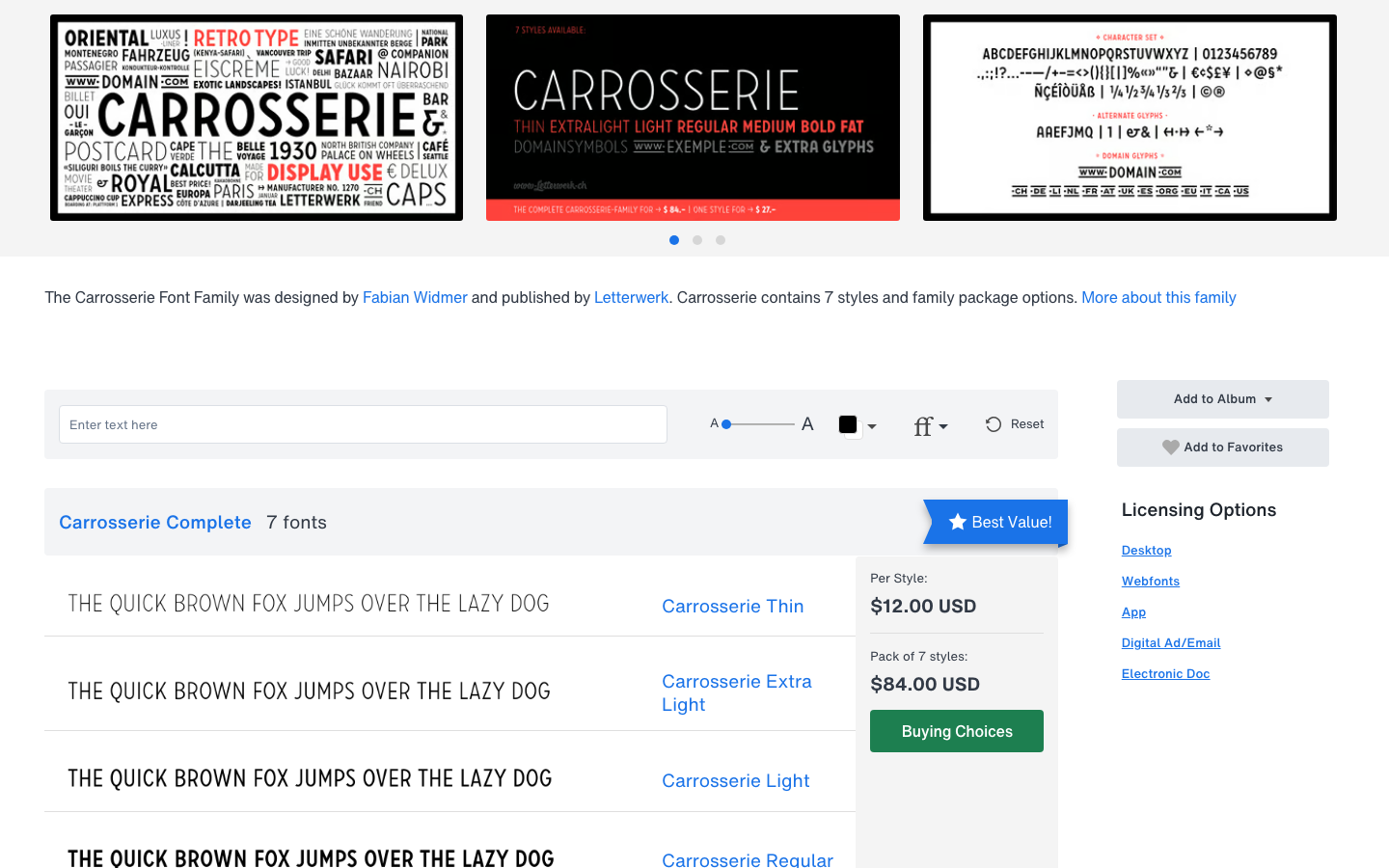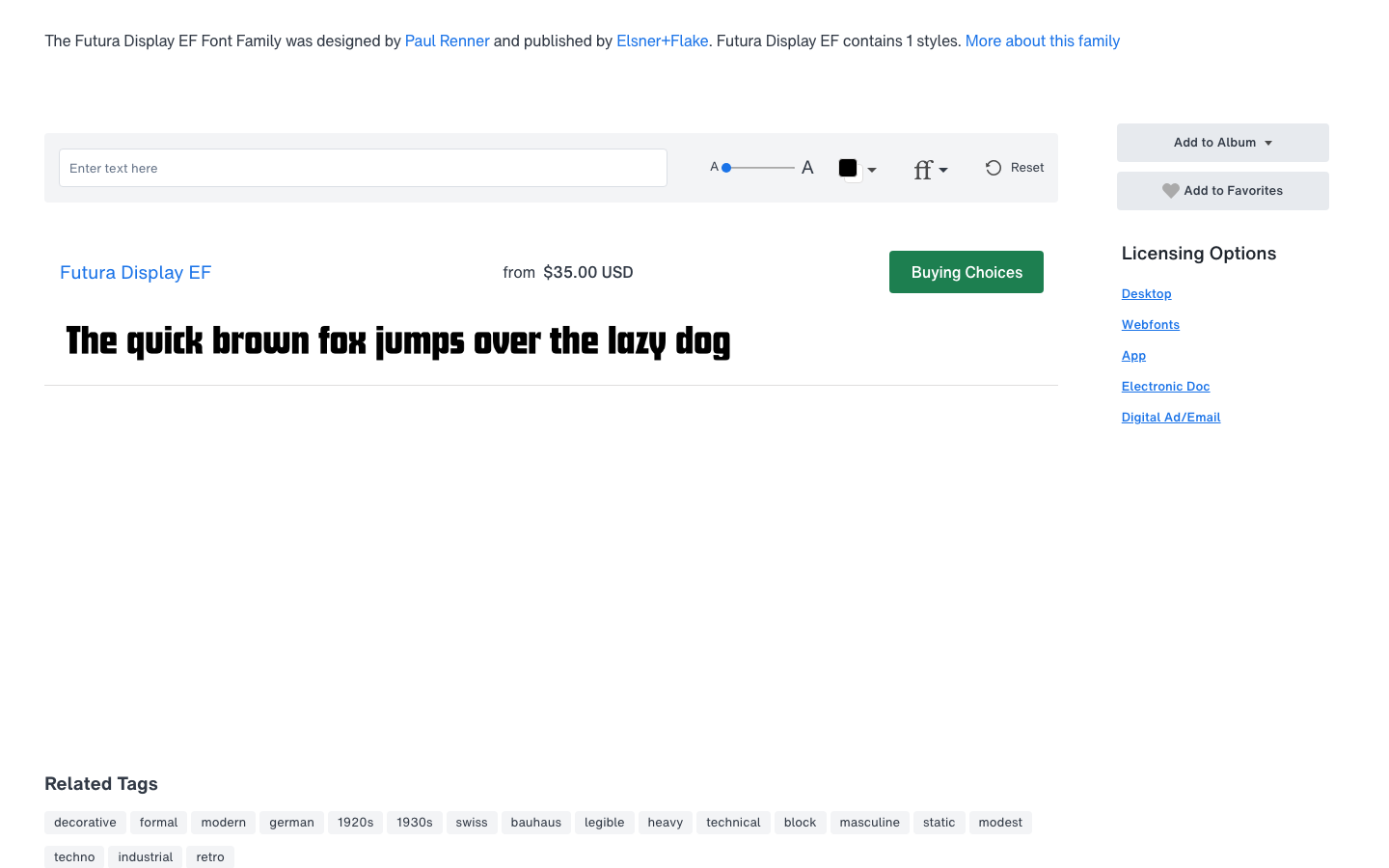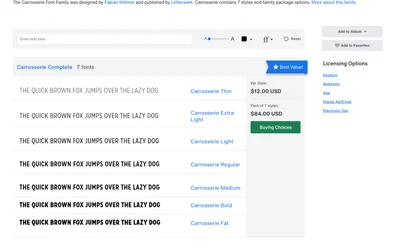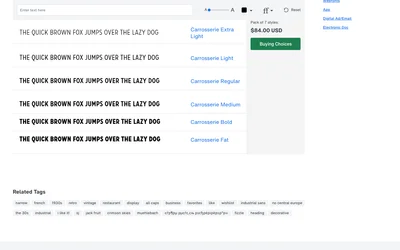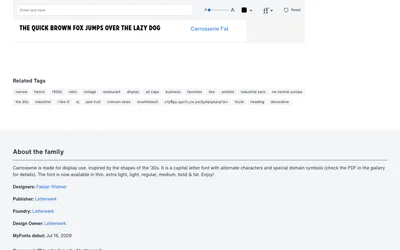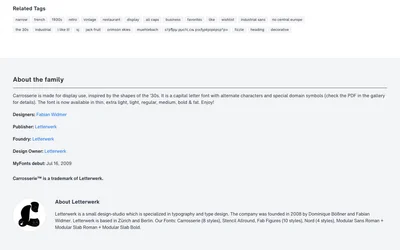
Carrosserie vs Futura Display
Carrosserie and Futura Display are both display typefaces sharing a geometric foundation. Where Carrosserie leans art deco, Futura Display brings bold, modern. Compare which suits your Branding project.
| Feature | Carrosserie | Futura Display |
| Classification | display | display |
| Source | Letterwerk | Linotype |
Recommended: Carrosserie
- art deco design character
- Suited for Packaging
- From Letterwerk
Consider: Futura Display
- bold, modern design character
- Suited for Advertising
- From Linotype